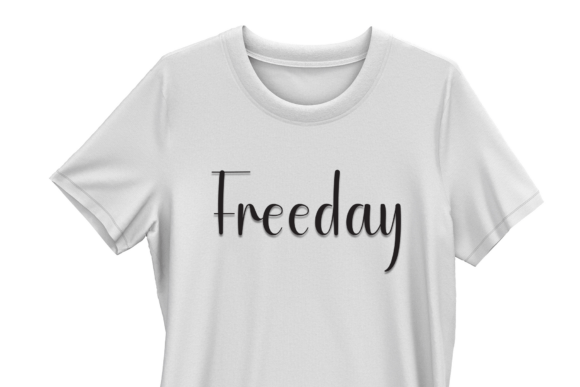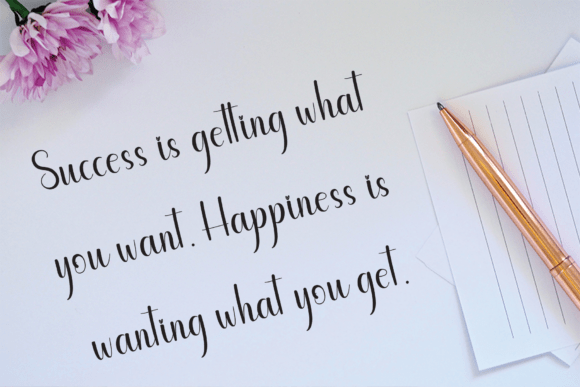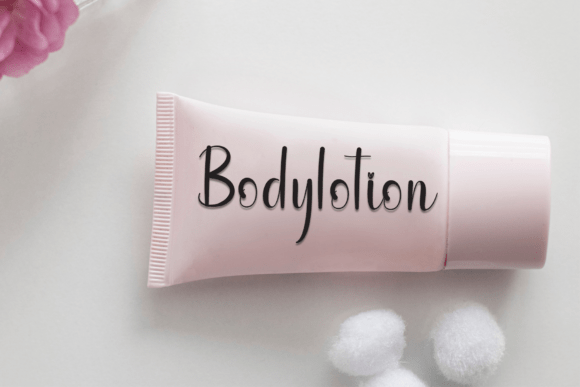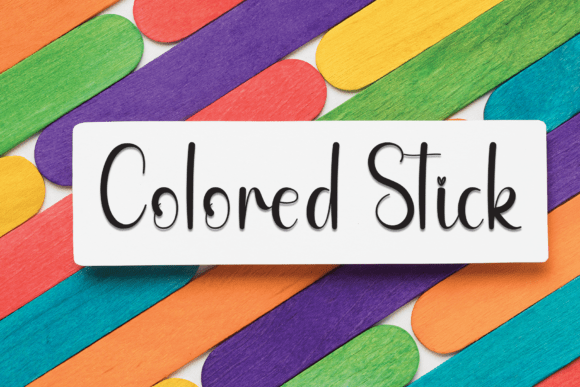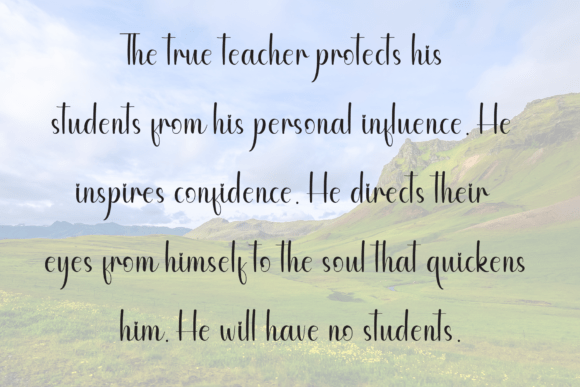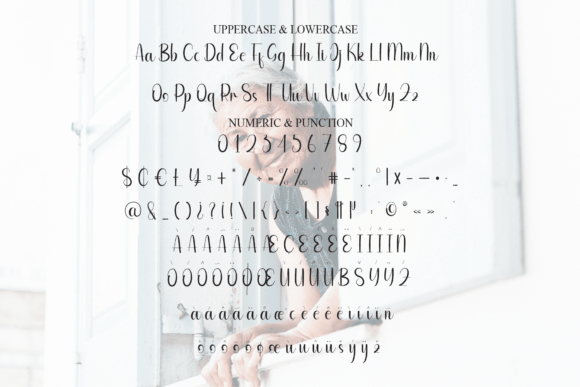
Introducing Grandma Font: The Perfect Blend of Fun and Sophistication
Are you tired of using the same old fonts in your designs? Look no further! Our Grandma Font is here to bring a touch of warmth and personality to your projects. This handwritten display font is overflowing with lovable charm, making it the perfect choice for designers and crafters who want to add a dash of cheer to their work.
A Welcoming and Relatable Aura
Grandma Font radiates a welcoming and relatable aura, making it perfect for designs that require a personal touch. Its elegant strokes and curves evoke a sense of nostalgia, reminiscent of handwritten notes from a loved one. This font is sure to make your designs stand out from the crowd and leave a lasting impression on your audience.
A Perfect Balance of Fun and Sophistication
What sets Grandma Font apart is its unique balance of fun and sophistication. It’s a font that’s playful enough to add a touch of whimsy to your designs, yet elegant enough to be used in more formal applications. Whether you’re designing wedding invitations, greeting cards, or social media graphics, Grandma Font is the perfect choice.
Reconstructing the Appeal of Wedding Invitations
Wedding invitations are a great example of where Grandma Font truly shines. Its elegant strokes and romantic feel make it perfect for couples who want to set the tone for their special day. With Grandma Font, you can create beautiful and unique wedding invitations that will leave a lasting impression on your guests.
Enlivening Greeting Cards
Greeting cards are another area where Grandma Font excels. Whether you’re creating birthday cards, thank-you cards, or holiday cards, this font adds a touch of warmth and personality to your designs. Its playful yet sophisticated feel makes it perfect for a wide range of occasions.
Adding a Dash of Cheer to Your Designs
Grandma Font is not just limited to wedding invitations and greeting cards. It’s a versatile font that can be used in a wide range of designs, from social media graphics to packaging and branding. Its distinctive mixture of sweetness and amiability makes it the perfect choice for designers who want to add a dash of cheer to their work.
Unleashing Your Imagination
One of the best things about Grandma Font is its ability to unleash your imagination. With its unique blend of fun and sophistication, you can create designs that are truly one-of-a-kind. Whether you’re a designer, crafter, or DIY enthusiast, Grandma Font is the perfect choice for anyone who wants to add a touch of personality to their work.
Key Features of Grandma Font
- Handwritten display font with a welcoming and relatable aura
- Perfect balance of fun and sophistication
- Elegant strokes and curves evoke a sense of nostalgia
- Versatile font suitable for a wide range of designs
- Distinctive mixture of sweetness and amiability
In conclusion, Grandma Font is a unique and versatile font that’s perfect for designers and crafters who want to add a touch of personality to their work. Its welcoming and relatable aura, perfect balance of fun and sophistication, and distinctive mixture of sweetness and amiability make it the perfect choice for a wide range of designs. So why not give Grandma Font a try and see how it can elevate your designs to the next level?
With Grandma Font, you can create designs that are truly one-of-a-kind and leave a lasting impression on your audience. So don’t settle for the same old fonts – try Grandma Font today and discover a world of creative possibilities!